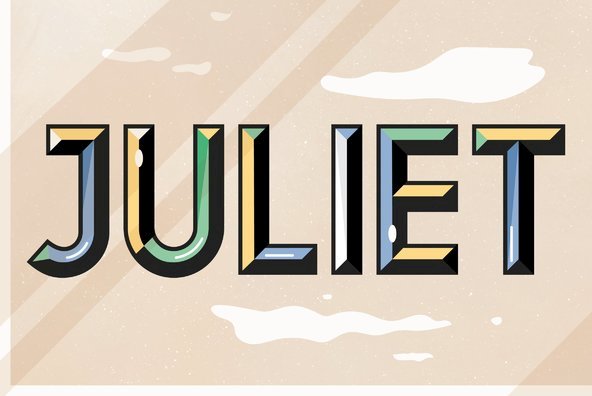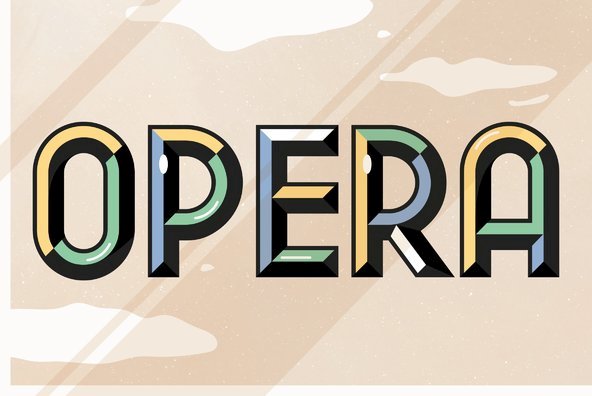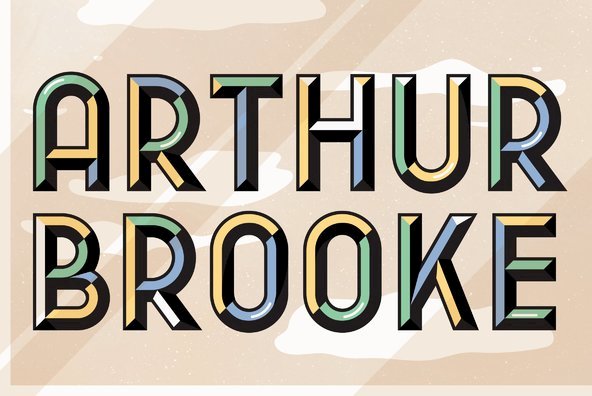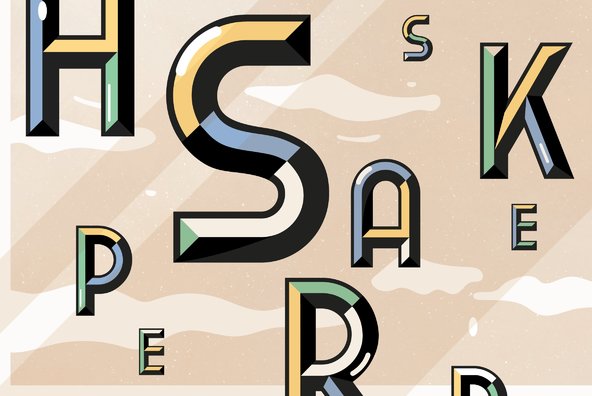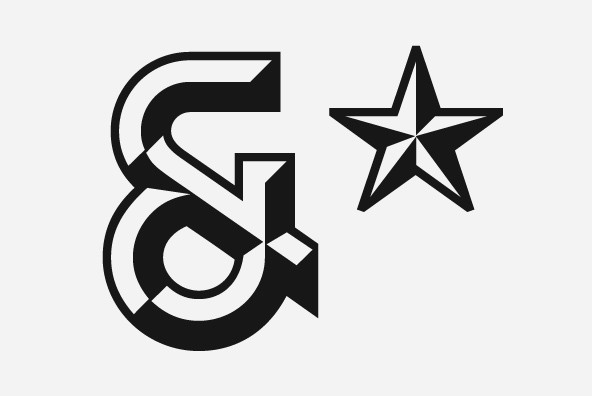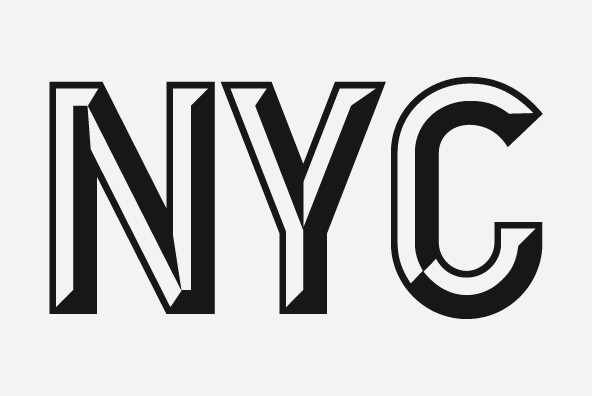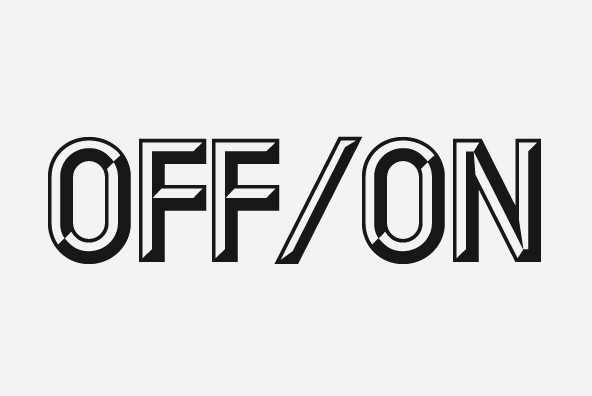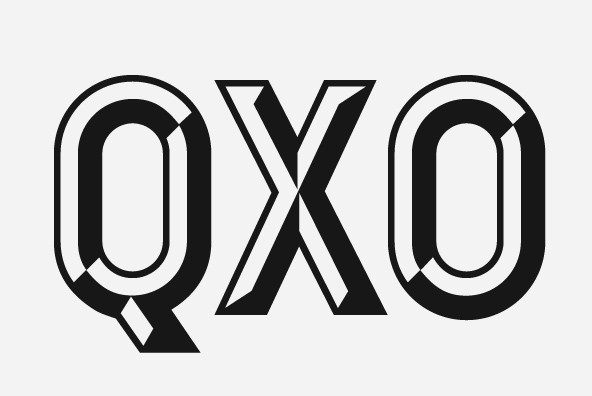
Hey mister! Wanna buy a headline? Look no further than the decorative, beveled style of Romeo. With Dutch-designed all-caps mastery, Romeo works best for DEWEY DEFEATS TRUMAN-style headlines, with a distinctive power and prestige that grabs the eye like sunlight glinting off the priceless gemstones on the Grand Duke's Signet Ring. Bring serious visual impact to flyers, posters, and any above-the-fold +72-pt situations where you want to be a little bit taller, or a baller, or driving a six-four Impala. Break it apart in Illustrator and change up some colors for even more pow-pow-power.
Designed by Coen Hofmann in 2004, Romeo has over 300 glyphs and is caps-only.